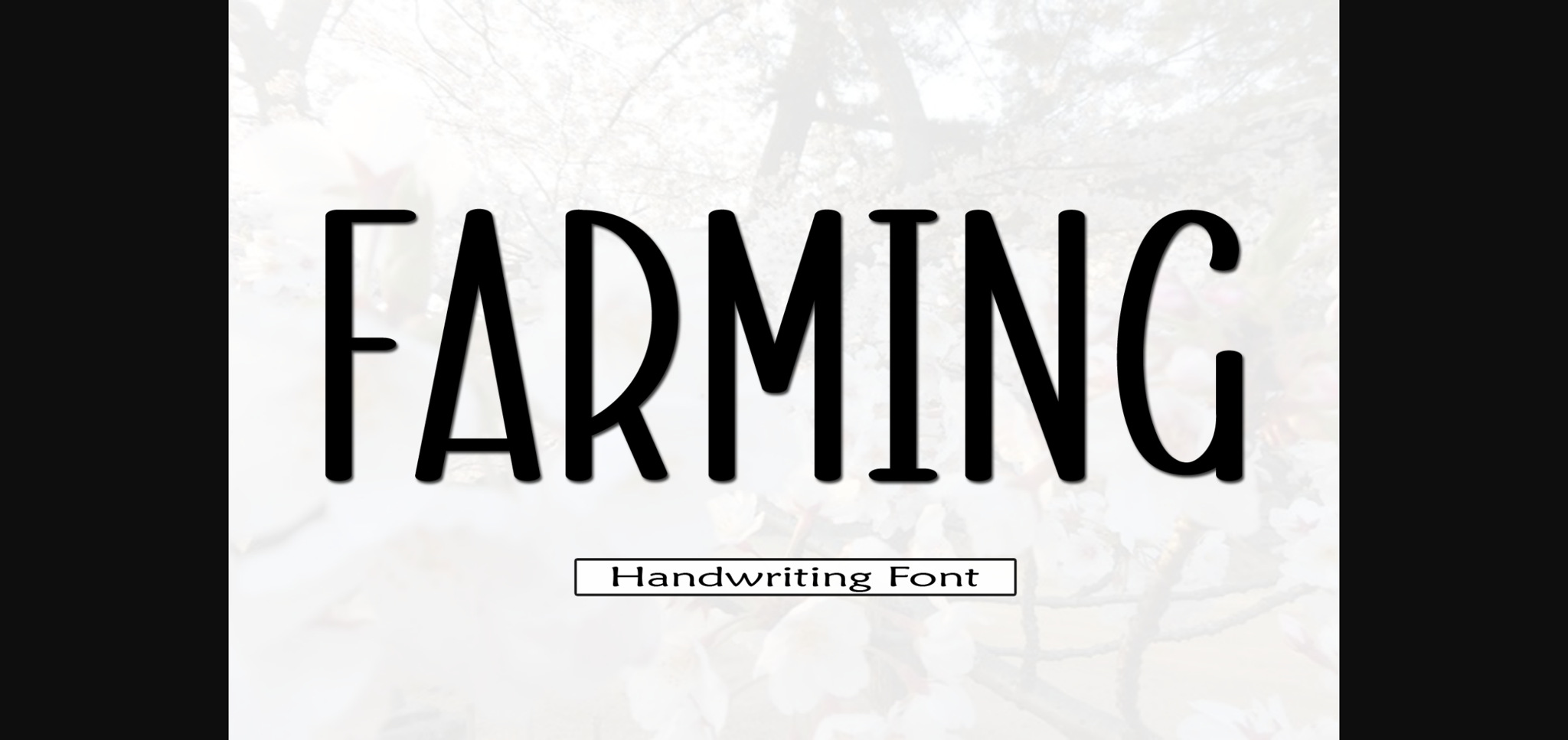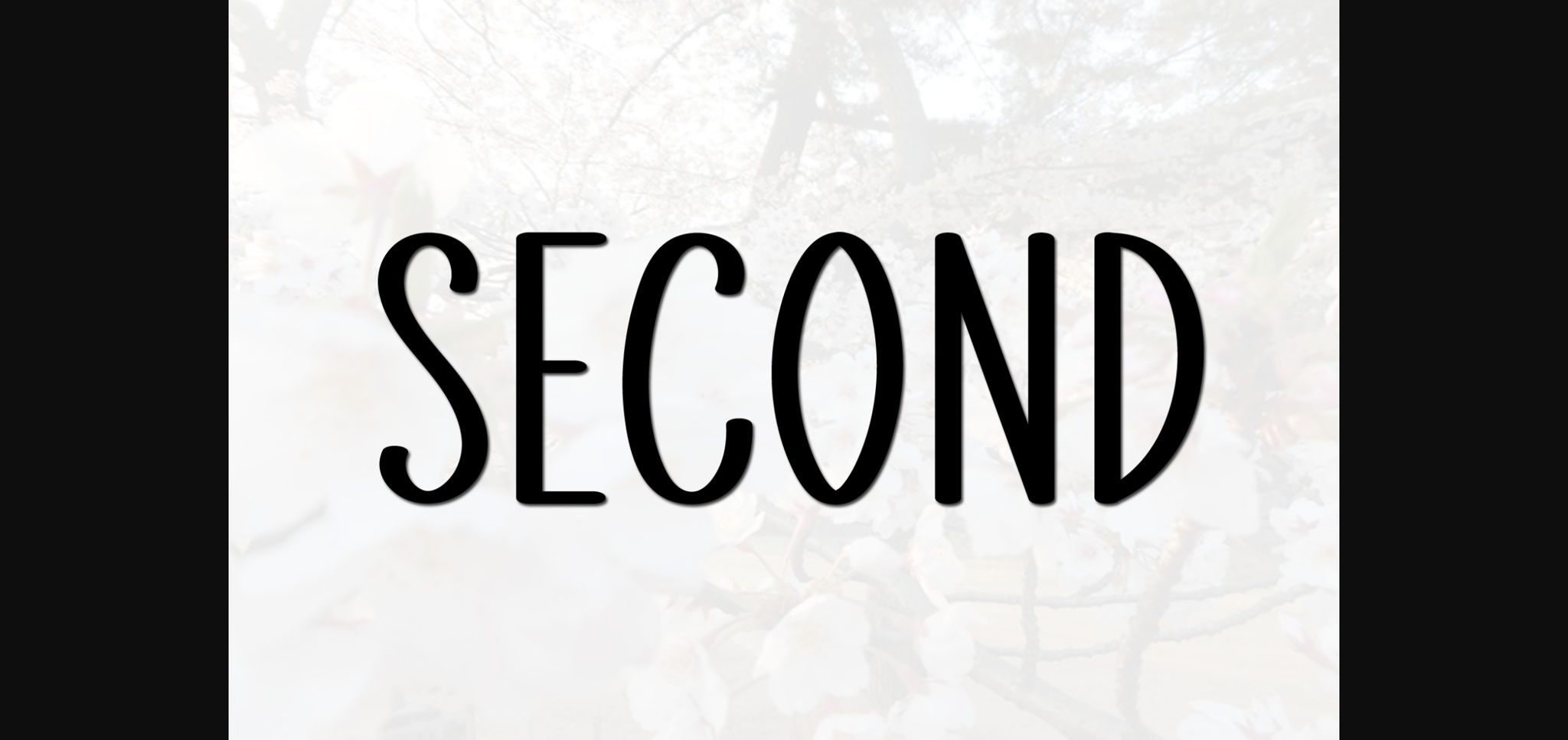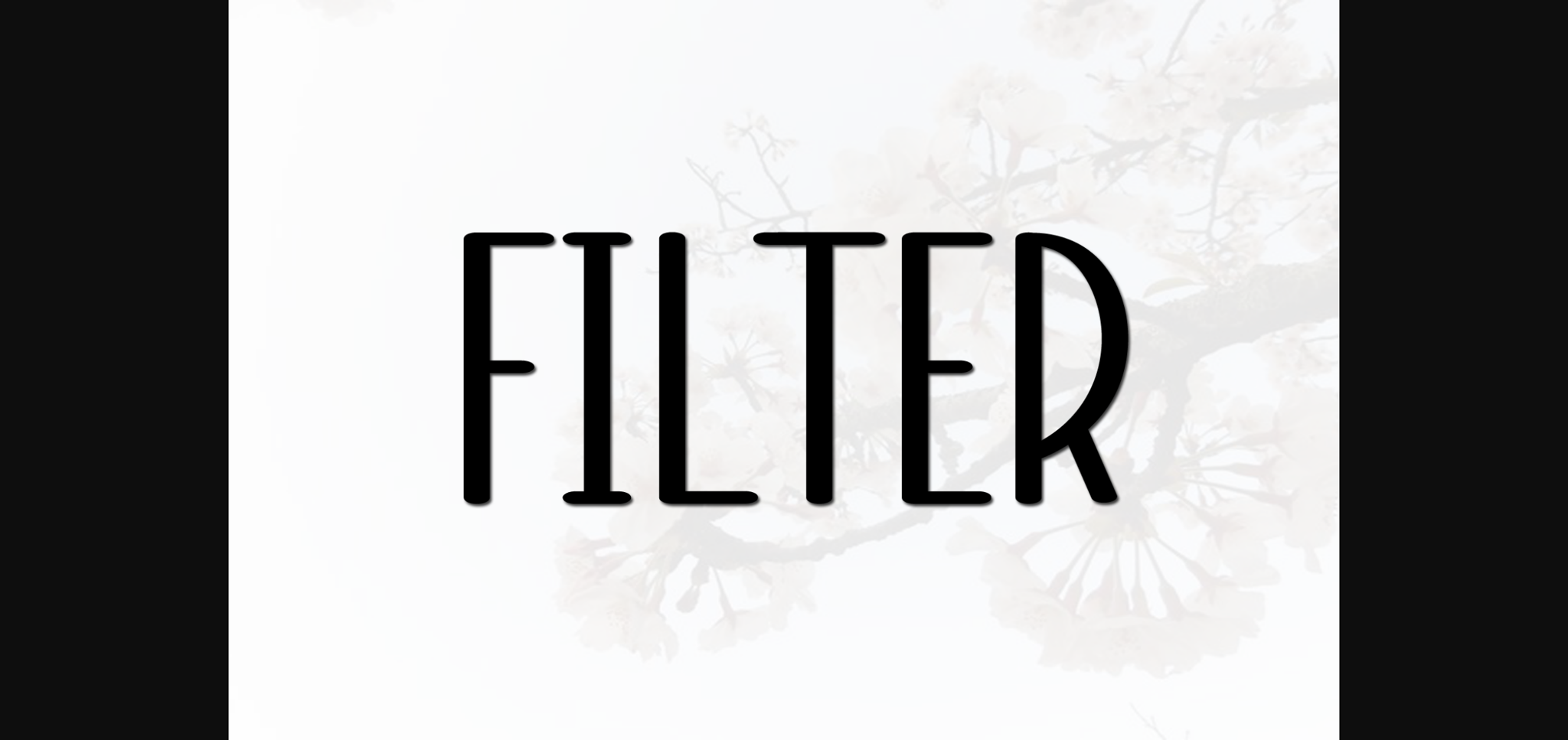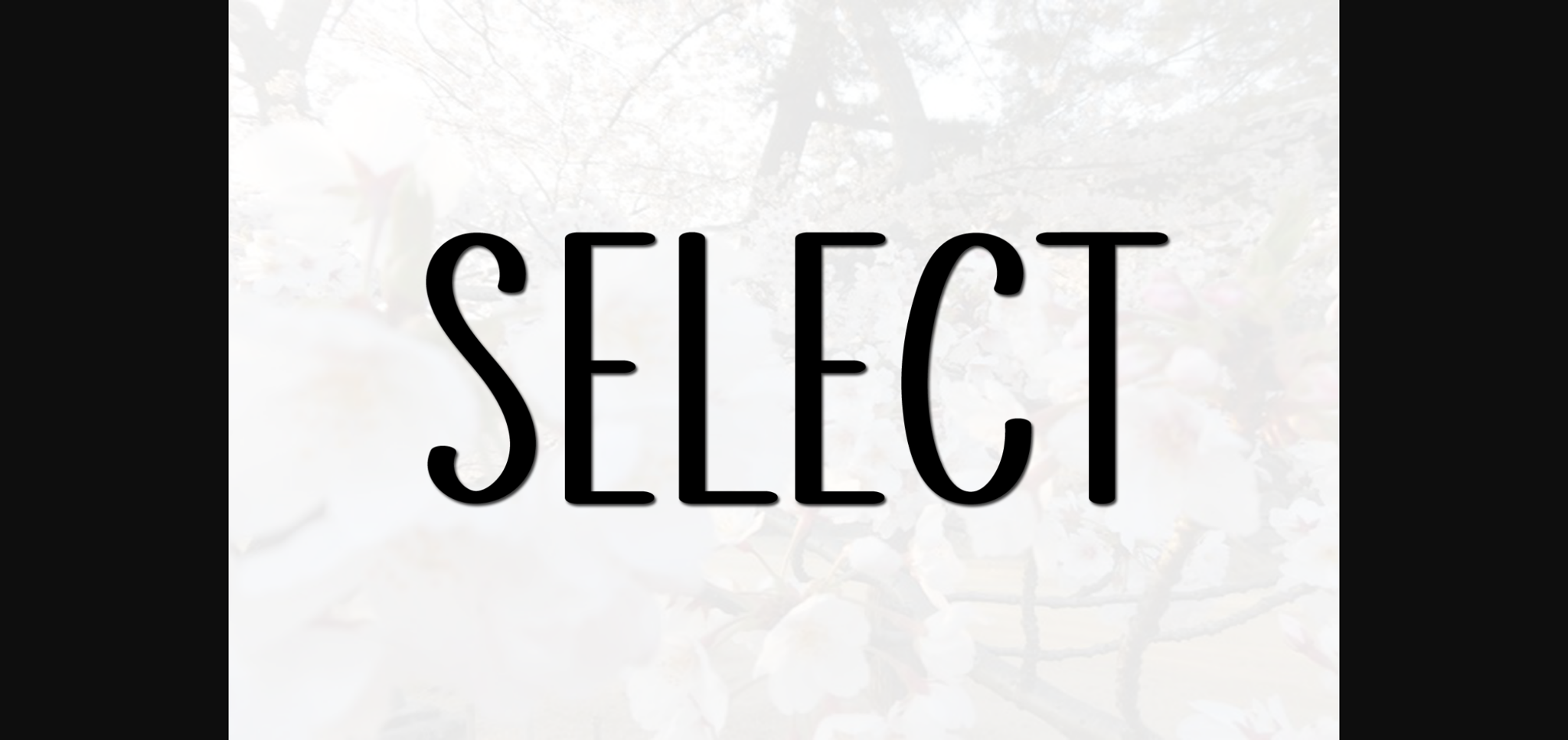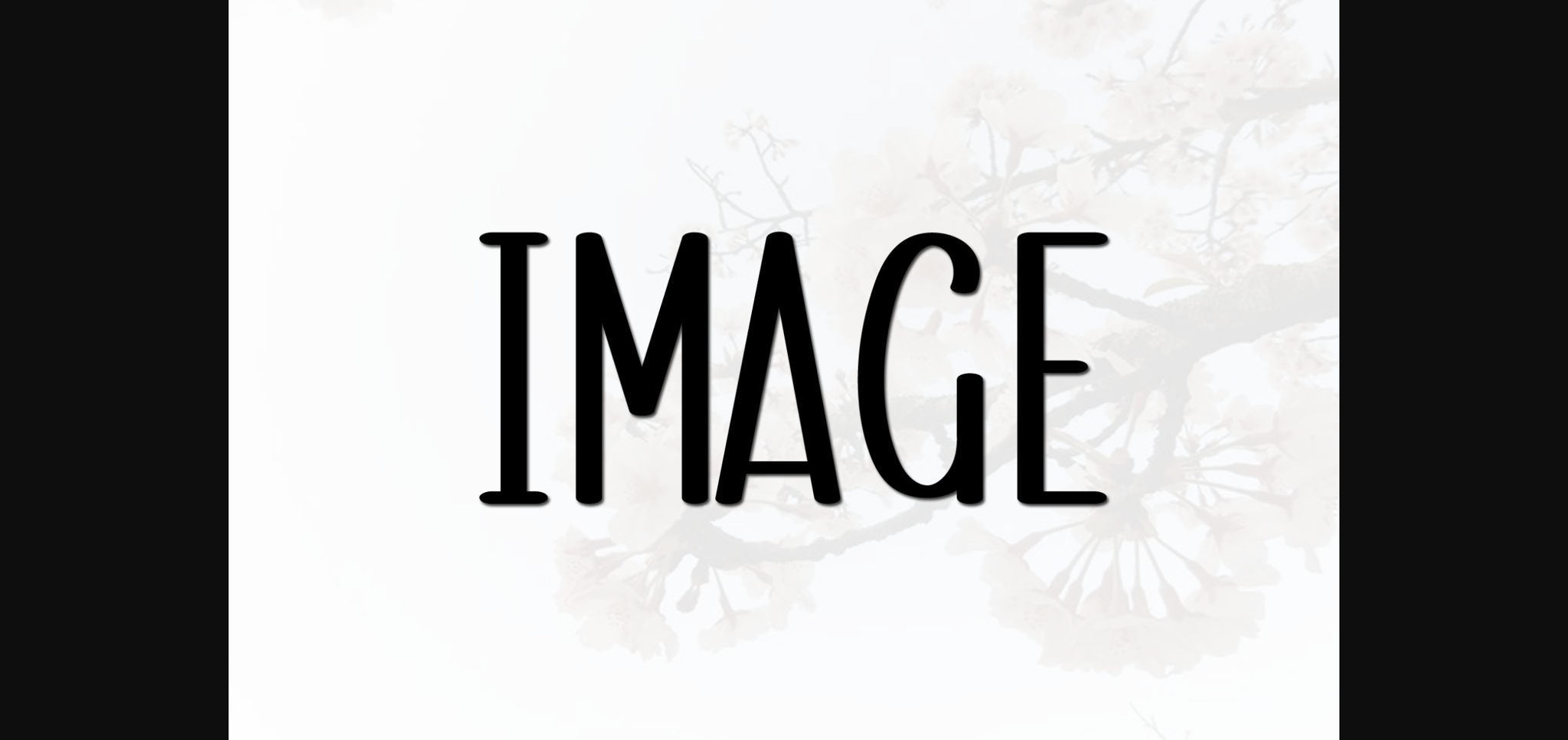
HomeSans Serif FontsFarming Font Sans Serif Fonts Farming Font FacebookXPinterestWhatsApp 1 of 7 ... Farming Font Poster 2... Farming Font Poster 3... Farming Font Poster 4... Farming Font Poster 5... Farming Font Poster 6... Farming Font Poster 7... About Farming Font Farming is a stylish and very elegant handwritten font. It looks amazing on wedding invitations, thank you cards, quotes, greeting cards, logos, business cards and any other design that calls for a handwritten touch. DOWNLOAD NOW People also explored Maulidar Sweet Seventeen Font Shealy Font Lightful Font Alioth Font Koala Font Amandez Font Amertha Font Billidas Font 399 0 TagsFarmingFarming Font Previous articleShangai FontNext articleSpring Combine Font LEAVE A REPLY Cancel reply Comment: Please enter your comment! Name:* Please enter your name here Email:* You have entered an incorrect email address! Please enter your email address here Website: Save my name, email, and website in this browser for the next time I comment. Personal Use Free Bridgetown Font Personal Use Free Read more about this font Rise of Kingdom Personal Use Free Read more about this font Ennobled Pet Personal Use Free Read more about this font Lost Treasure Personal Use Free Read more about this font BLOG How to Cut Any Font on Cricut: Convert a Font to SVG (Free) Turn any font into a clean SVG so it cuts crisp on Cricut - a quick 3-step workflow using a free font-to-SVG tool. The 10 Best Handwriting Fonts to Add Personality to Your Designs Exploring Font Trends Where to Buy American Fonts Online in 2024